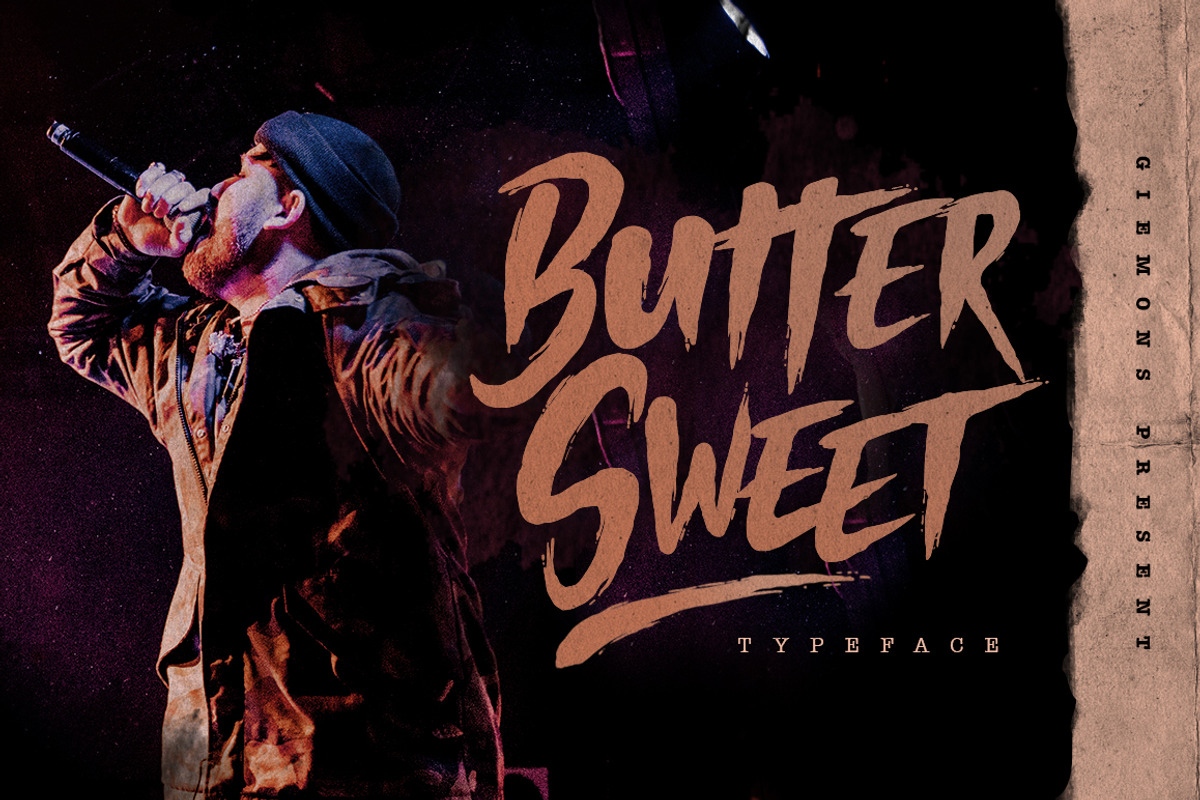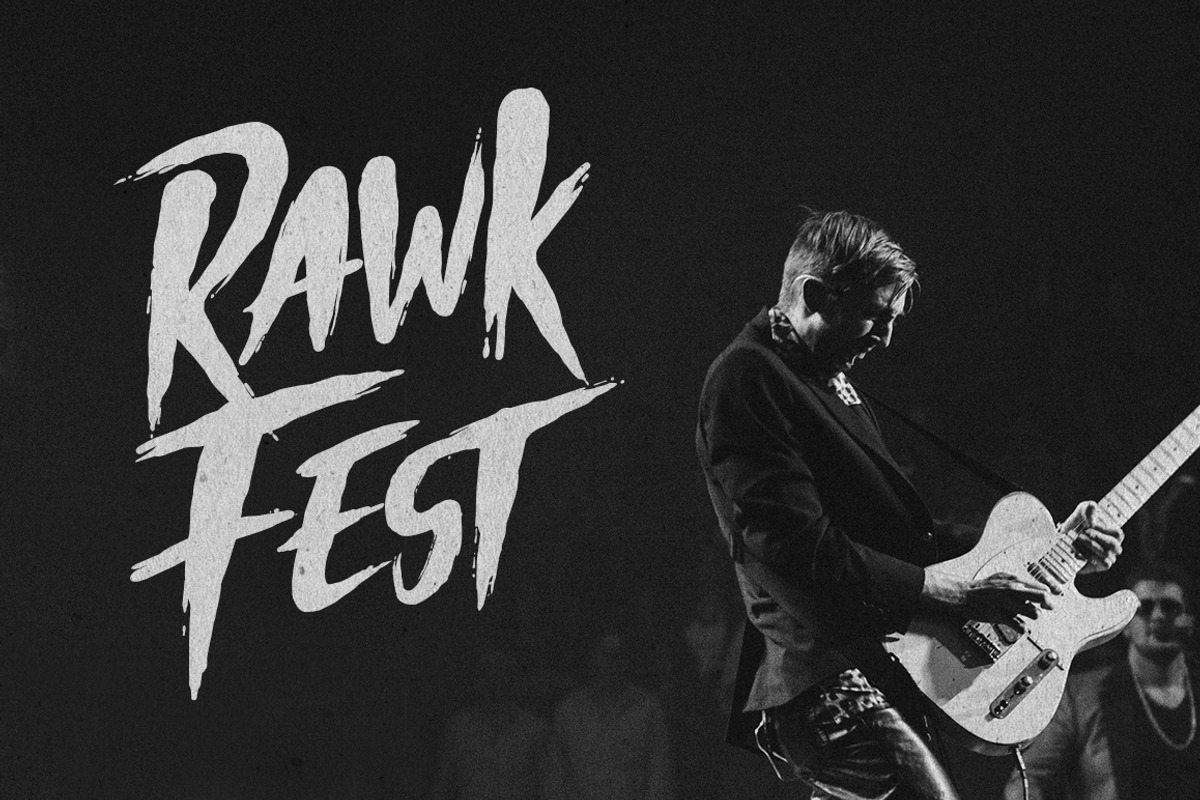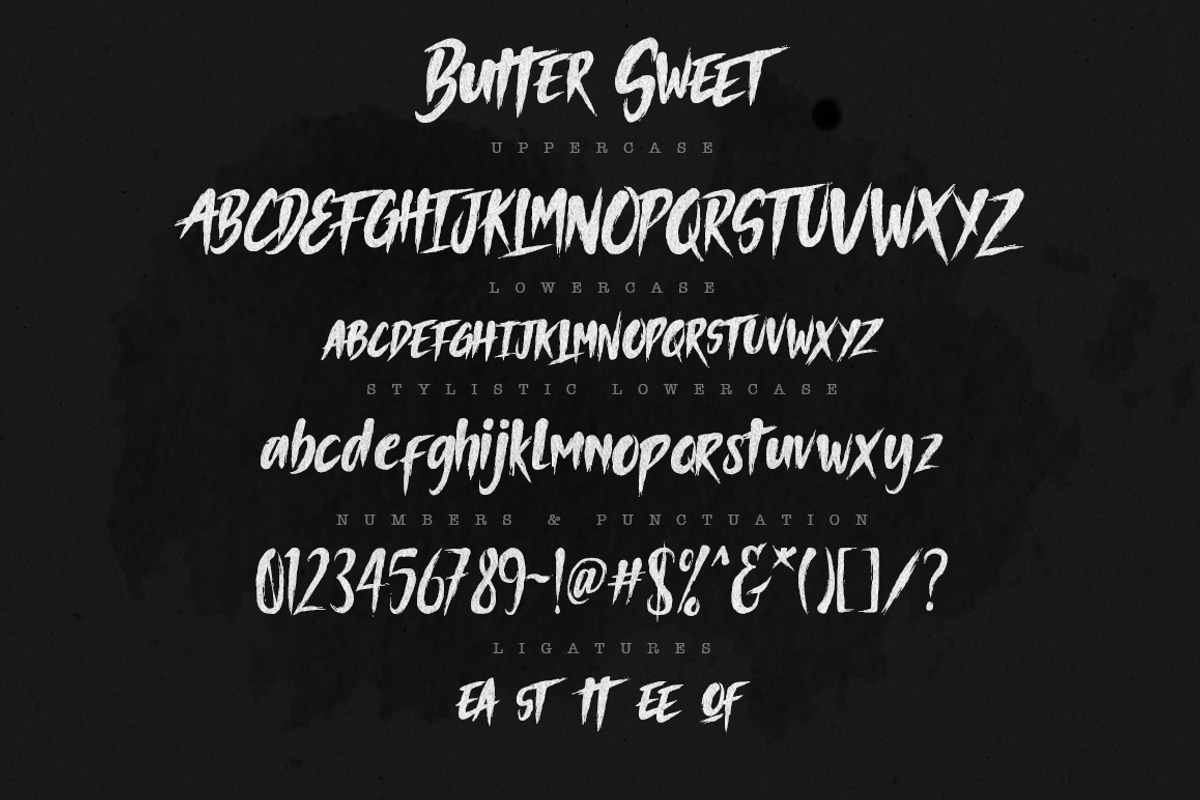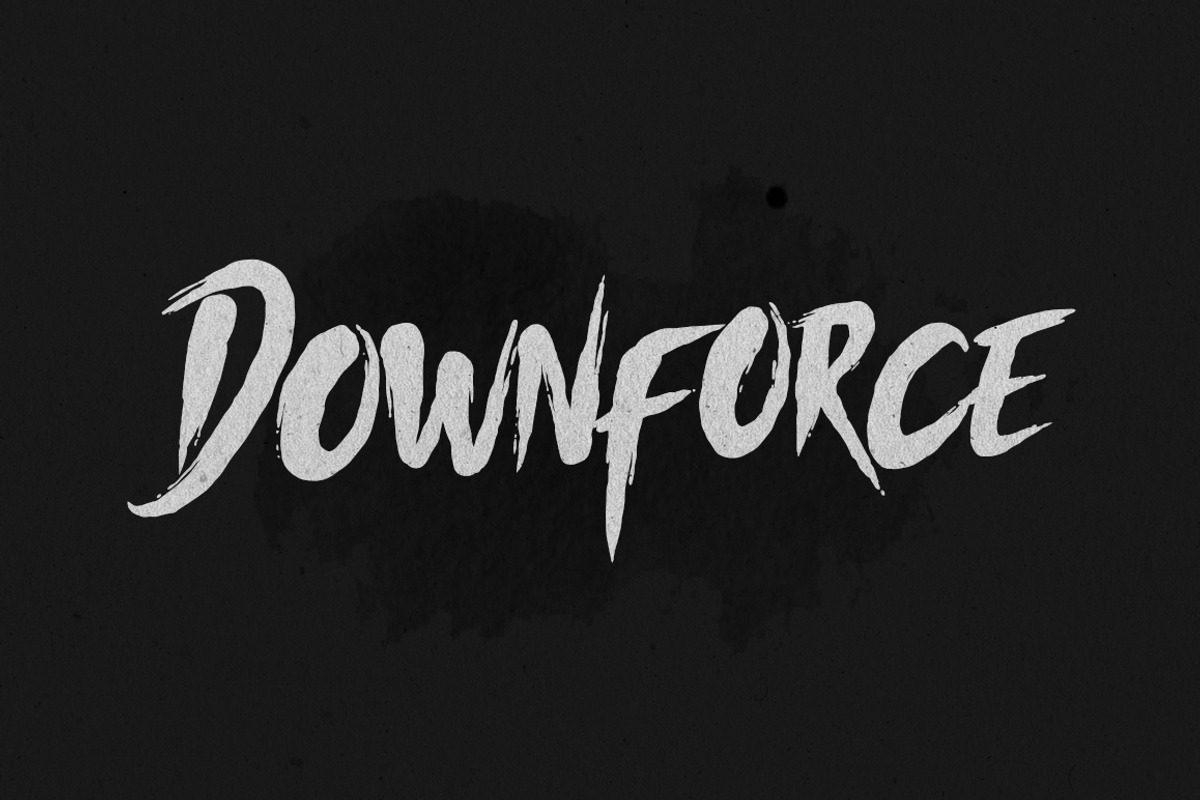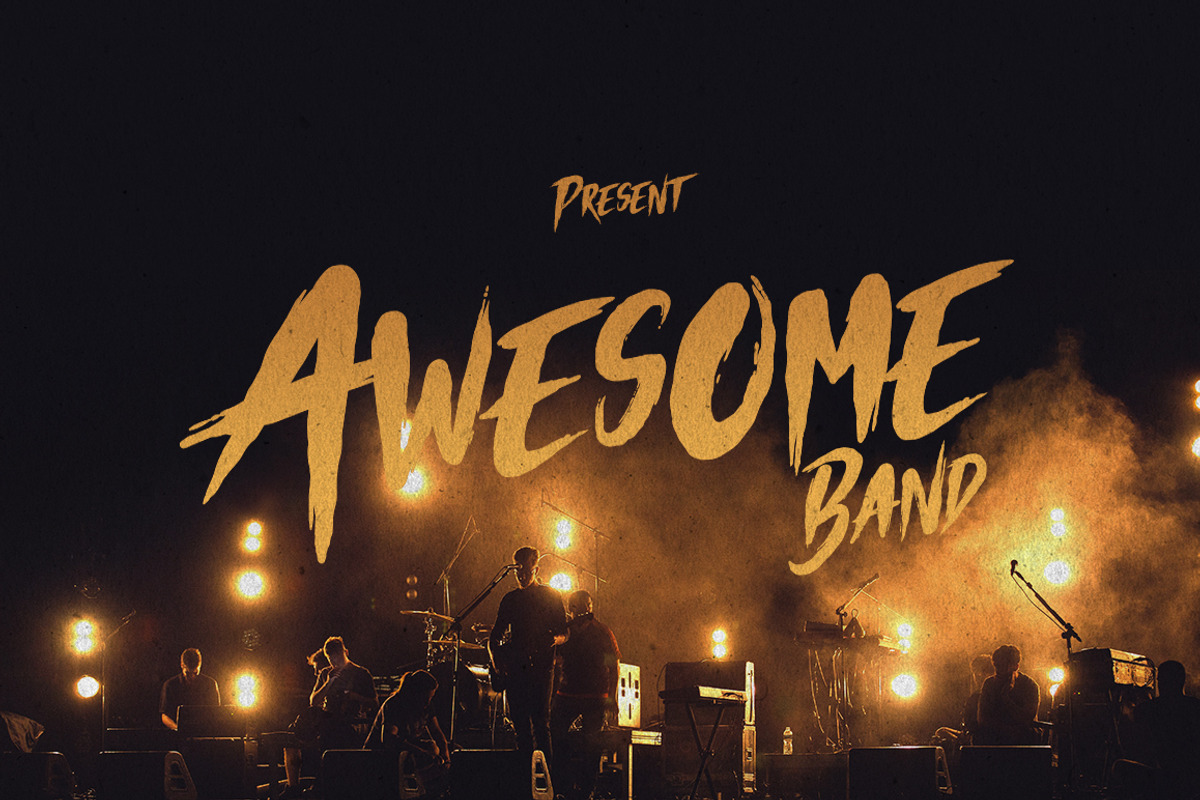
Butter Sweet Typeface
a Butter Sweet Typeface is Display Font. Can make it easier to convey the message in your design. Use for awesome display, labeling, clothing, movie sceen, poster, movie title, gigs, album covers, logos, and much more.
Why Butter Sweet Typeface is worth a look
Butter Sweet Typeface by giemons™ fits naturally into Branding, posters, packaging, typography.